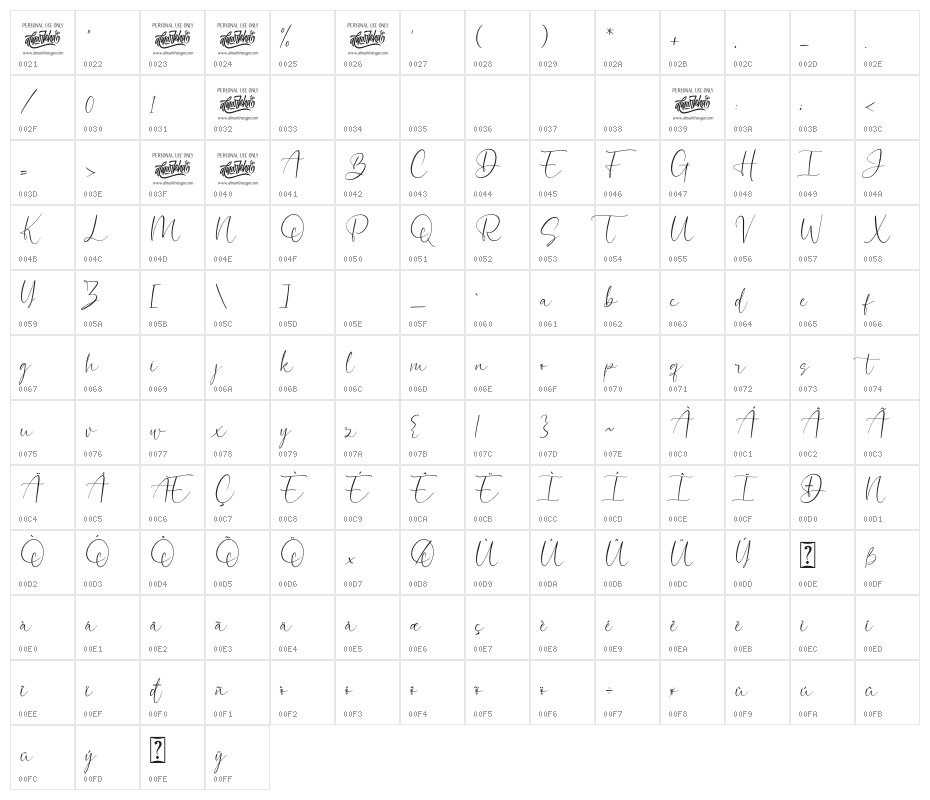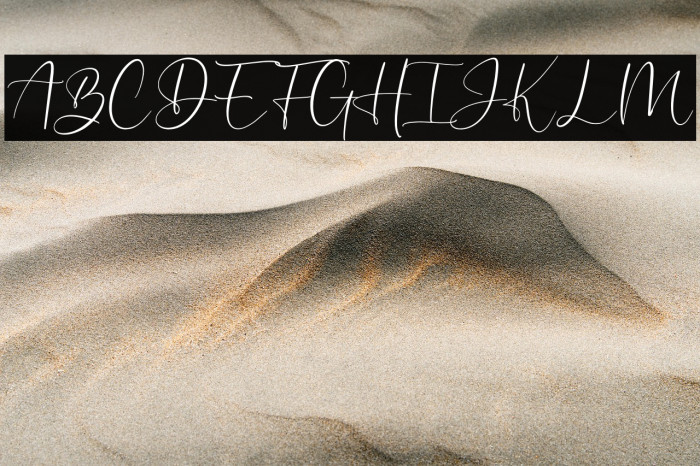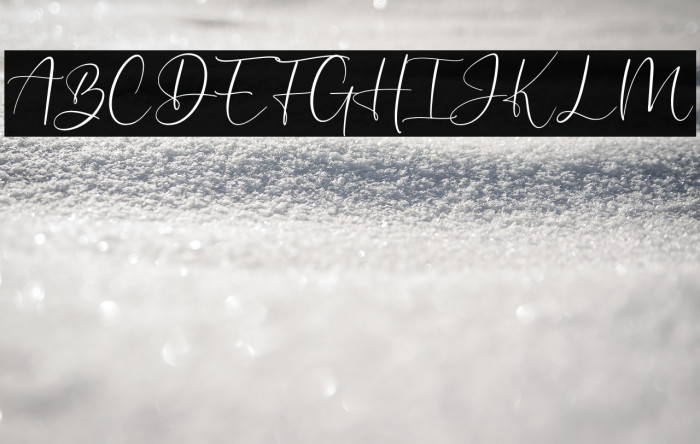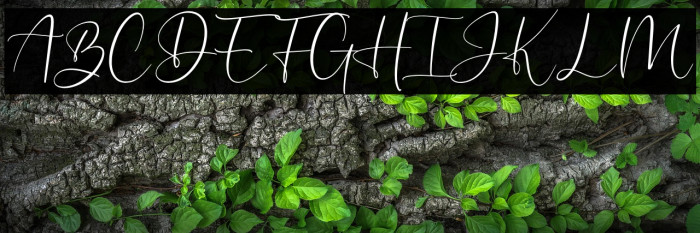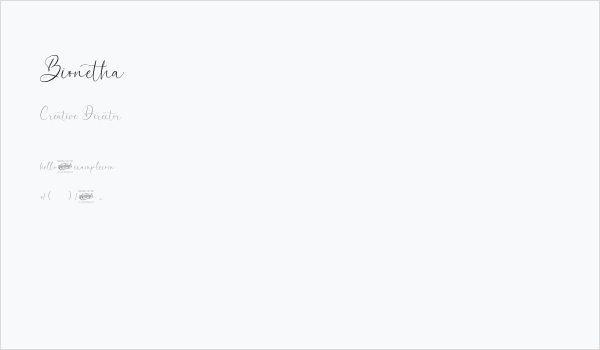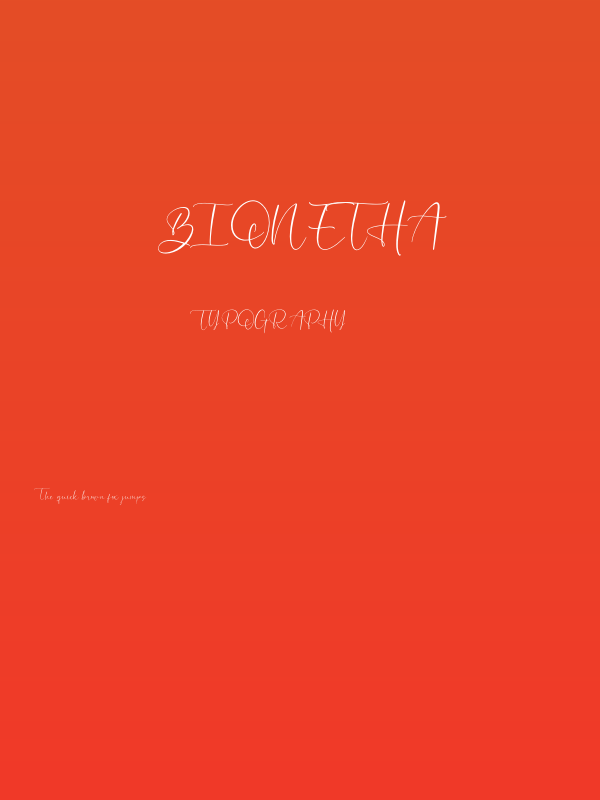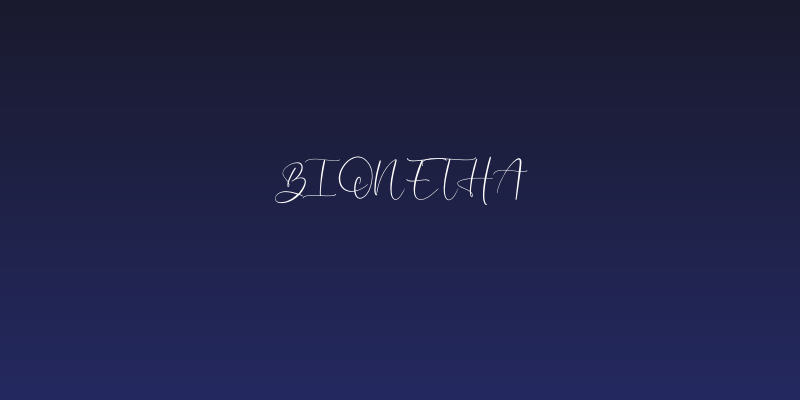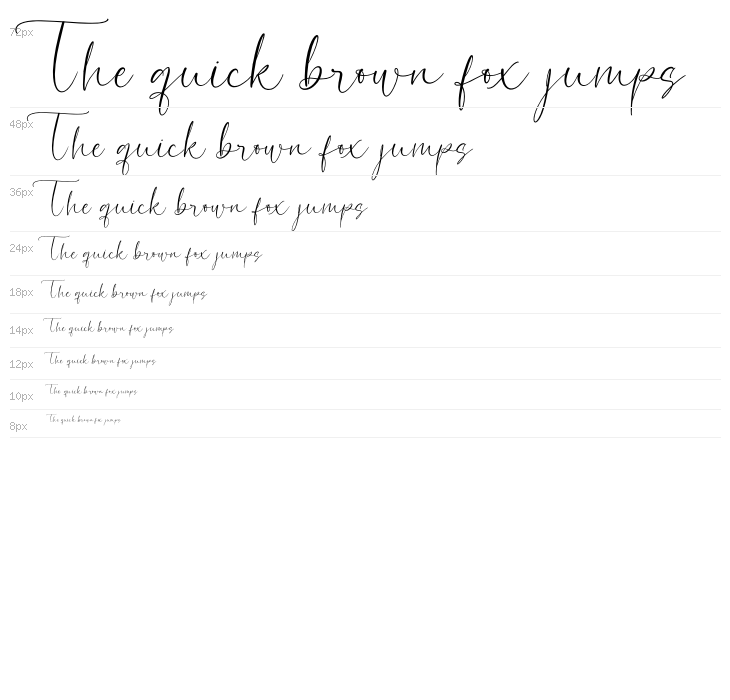
Bionetha Font
Bionetha Description
This elegant script font features a flowing, handwritten style with graceful curves and loops. The uppercase letters are tall and slender, with a slight slant that adds a dynamic feel. Lowercase letters maintain a consistent flow, enhancing the font's overall fluidity. The characters are delicately connected, creating a seamless appearance. The font includes numerals and a selection of special characters, each maintaining the same elegant style. Its thin strokes and high contrast give it a refined and sophisticated look, making it ideal for projects that require a touch of elegance and personalization.
| Overall Style | Elegant, Sophisticated |